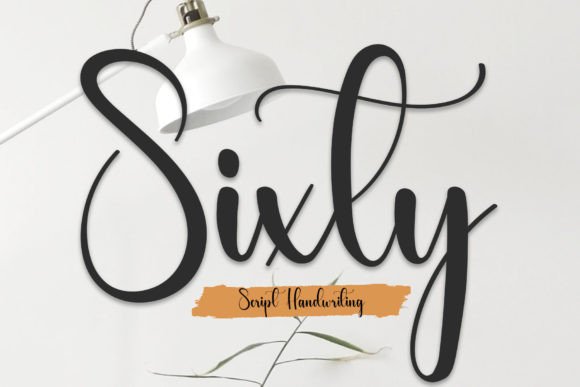
In a world awash with digital monotony, where fonts often blend together in a sea of similarity, Sixty Font emerges as a breath of fresh air, a stroke of brilliance that elevates your designs to new heights of distinction. This exquisite script font, meticulously crafted by the visionary artists at Bintang Studio, is a masterpiece of digital calligraphy, a timeless classic reimagined for the modern era.
Sixty Font is not just a collection of characters; it's a gateway to a world of elegance, sophistication, and boundless creativity. Its carefully balanced strokes and varied letterforms dance across your designs with a grace that is both captivating and timeless. Whether you're crafting a stunning menu, designing an enchanting invitation, or weaving your words into a work of art, Sixty Font is your muse, your faithful companion on the journey to visual excellence.
With Sixty Font, your designs transcend the ordinary, taking on a life of their own. Its contemporary atmosphere infuses your projects with a sense of modernity, while its unwavering adherence to classic calligraphy ensures a timeless appeal that will endure for generations to come. It's a font that speaks volumes, even in silence, conveying messages of elegance, sophistication, and impeccable taste.
So embark on this creative odyssey with Sixty Font as your guide. Discover the limitless possibilities that await you, as your designs blossom into masterpieces that captivate and inspire. Let your imagination soar, and let Sixty Font be the ink that brings your vision to life.